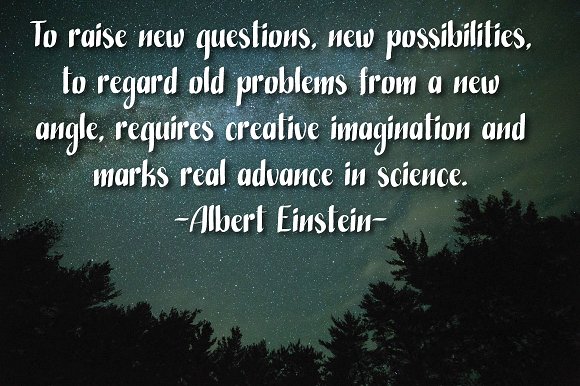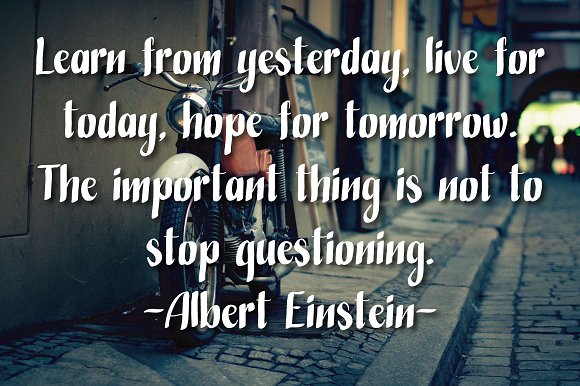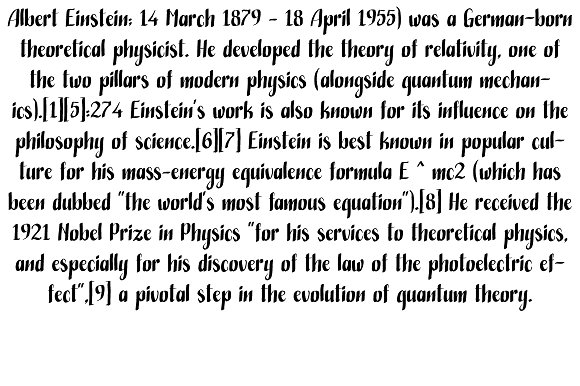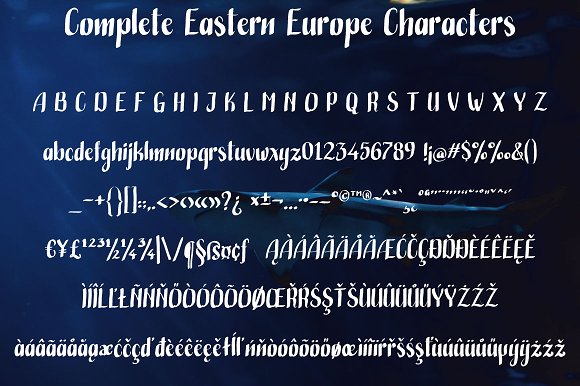
Unleashing Your Creativity with Handwritten Bold Font
Have you ever been stuck in a creative rut, unable to bring your vision to life? You know, that moment when your ideas feel stagnant, and you’re desperate for a spark to reignite your passion. For designers, this can be especially frustrating, as the perfect font can make all the difference in a project’s success. That’s where the Handwritten Bold Font comes in – a game-changing design resource that’s about to revolutionize your creative projects.
Developed by the talented team at Darwinoo, this font is a masterpiece of design. With its unique, handwritten style and bold aesthetic, it’s the perfect addition to any project that requires a touch of personality. Whether you’re working on a personal project or collaborating with a client, the Handwritten Bold Font is sure to elevate your design and leave a lasting impression. And the best part? It’s available for free download, making it an accessible design resource for creatives of all levels.
Key Features of Handwritten Bold Font
- Unique, high-quality design ideal for creative projects requiring a personal touch.
- Comes with a transparent background, making it easy to integrate into any design.
- Features a bold, handwritten style that adds a touch of elegance to any text-based element.
- Includes a range of font sizes and resolutions to accommodate various design needs (up to 2048×2048 pixels).
- Perfect for designers seeking a distinctive design resource for their next creative project.
- Supports a wide range of languages, making it a versatile choice for international designs.
Honest Review: Handwritten Bold Font
As a designer, I’m always on the lookout for unique and high-quality design resources to elevate my creative projects. Recently, I stumbled upon the Handwritten Bold Font, and I’m excited to share my honest review.
- ✨ Unique and bold style that adds a touch of personality to any design project
- ✨ High-quality vector format, making it perfect for printing and scaling
- ✨ Transparent background, allowing for easy editing and customization
- ⚠️ Limited character set, which may not be ideal for longer text-based projects
- ⚠️ Some characters may not be perfectly aligned, which can be noticeable in certain fonts
Overall, I’m impressed with the Handwritten Bold Font. It’s a great addition to any designer’s toolkit, and I appreciate the fact that it’s available for free download. While it may have some limitations, it’s definitely worth considering for your next creative project.
The Handwritten Bold Font is a versatile design resource that can add a touch of personality to your creative project. It’s available for free download, making it an excellent choice for designers on a budget.
Tips for Getting the Most Out of Handwritten Bold Font
To get the most out of the Handwritten Bold Font, try pairing it with other design elements that complement its playful and bold style. Experiment with different font sizes, colors, and spacing to create a visually appealing design.
The Handwritten Bold Font is ideal for a variety of creative projects, including social media graphics, advertising materials, and branding elements. Its high-quality design and transparent background make it a versatile design resource that can be used across multiple platforms.
Yes, the Handwritten Bold Font is highly customizable, allowing designers to adjust the font’s size, color, and spacing to suit their creative project’s requirements. Additionally, the font’s transparent background feature makes it easy to combine with other design elements.